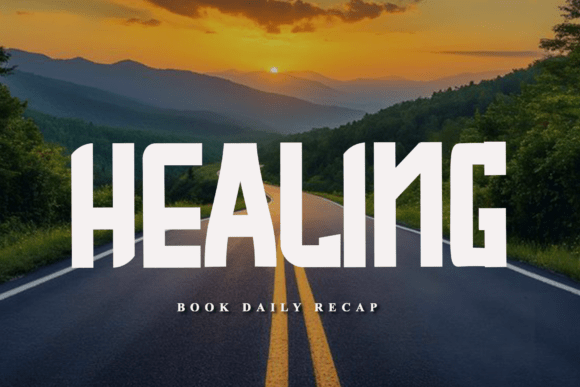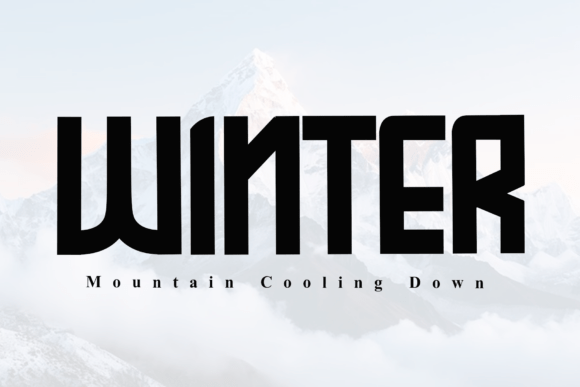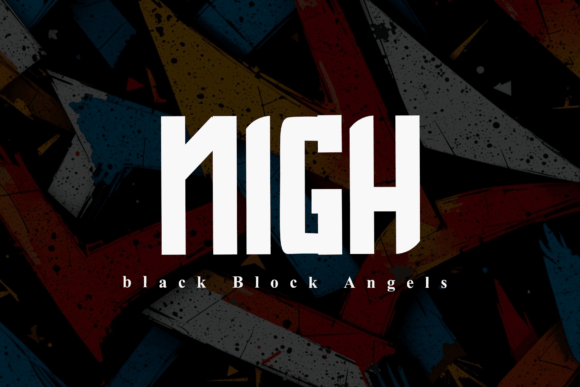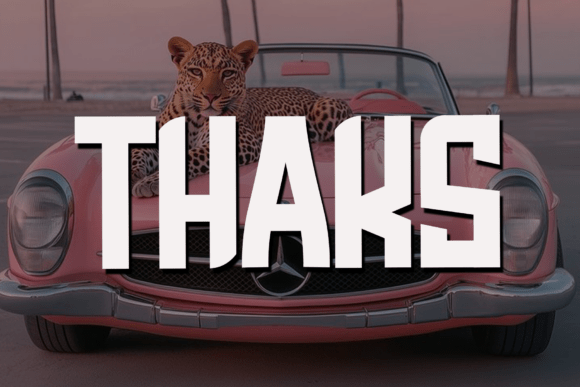
Introduction to Rider Font
As designers, we’ve all been there – staring at a blank canvas, struggling to find the perfect font to bring our creative project to life. But what if you could tap into a font that’s as bold as a sports stadium’s Jumbotron, as edgy as a music festival’s marquee, or as sleek as a high-performance car’s design? Enter Rider Font, the ultimate game-changer for designers seeking maximum impact.
With its sharp angles and strong geometric shapes, Rider Font is the perfect design resource for those looking to create high-quality visual content that demands attention. Whether you’re working on a free download project or a paid commission, Rider Font is the key to unlocking a confident and edgy style that brings a sense of power and motion to any design. And with its transparent background, the possibilities are endless.
So, get ready to rev up your designs with Rider Font and discover why it’s a valuable asset for any creative project.
Rider Font Key Features
- Designed to be highly legible and visually appealing, making it perfect for use in various design contexts.
- Unique characteristics include its modern and sleek design, making it an excellent choice for designers looking for a high-quality font.
Honest Review: Rider Font
The Rider Font is a high-quality design resource that offers a unique and stylish touch to any project. I particularly love its modern and sleek aesthetic, making it perfect for graphic designers and digital artists alike.
Here are some of the things that work well with the Rider Font:
- ✨ Its versatility in terms of usage, whether it’s for print or digital projects.
- ✨ The transparent background, which allows for seamless integration with other design elements.
- ⚠️ Limited font styles and weights, which may not be ideal for designers who require a wide range of options.
Overall, I’m thoroughly impressed with the Rider Font, and I would definitely recommend it to fellow designers. Its unique style and high-quality design make it a valuable addition to any creative project.
Rider Font
The Rider Font is a high-quality design resource perfect for creative projects. You can download it for free to enhance your visual content. With its clean and modern design, this font is ideal for various applications, from branding to digital media.
Tips for Getting the Most Out of Rider Font
To get the most out of the Rider Font, use it with a transparent background to create a clean and modern look. Experiment with different font sizes and colors to enhance your design.
The Rider Font is perfect for:
- Digital media and graphics
- Creative projects and art